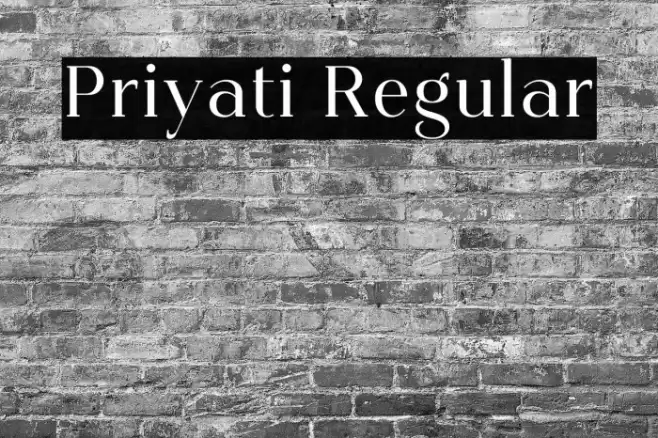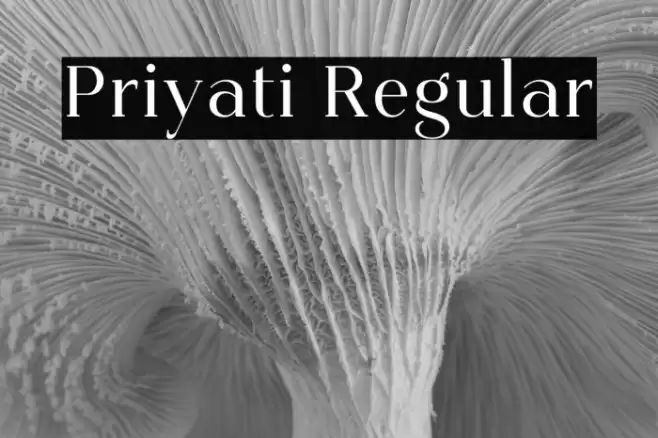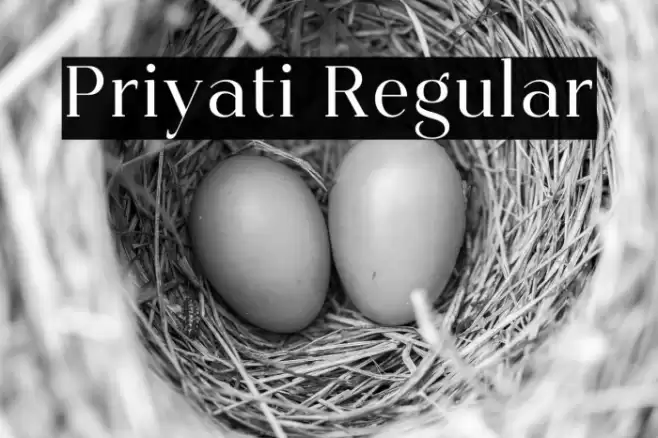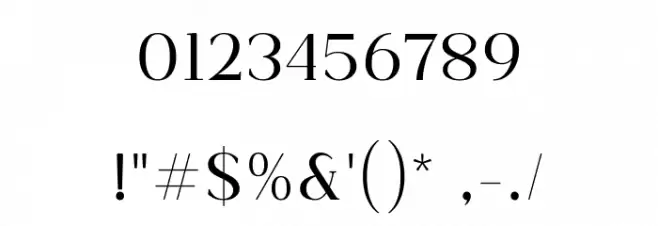
Priyati Regular Font
Priyati Regular Description
This font showcases a refined elegance with its classic serif design. The characters exhibit a balanced proportion, with slightly elongated serifs that add a touch of sophistication. The uppercase letters are bold and commanding, while the lowercase letters maintain a graceful flow. The numerals are clear and distinct, ensuring readability. Special characters are well-integrated, maintaining the overall aesthetic. This font is versatile, suitable for both formal and creative applications, offering a timeless appeal that can enhance any design project.
A classic serif font with elegant, elongated serifs and balanced proportions from Regular fonts.
- Proposed Projects: Ideal for editorial design, book covers, formal invitations, and branding projects that require a touch of elegance.
- Overall Style: Classic